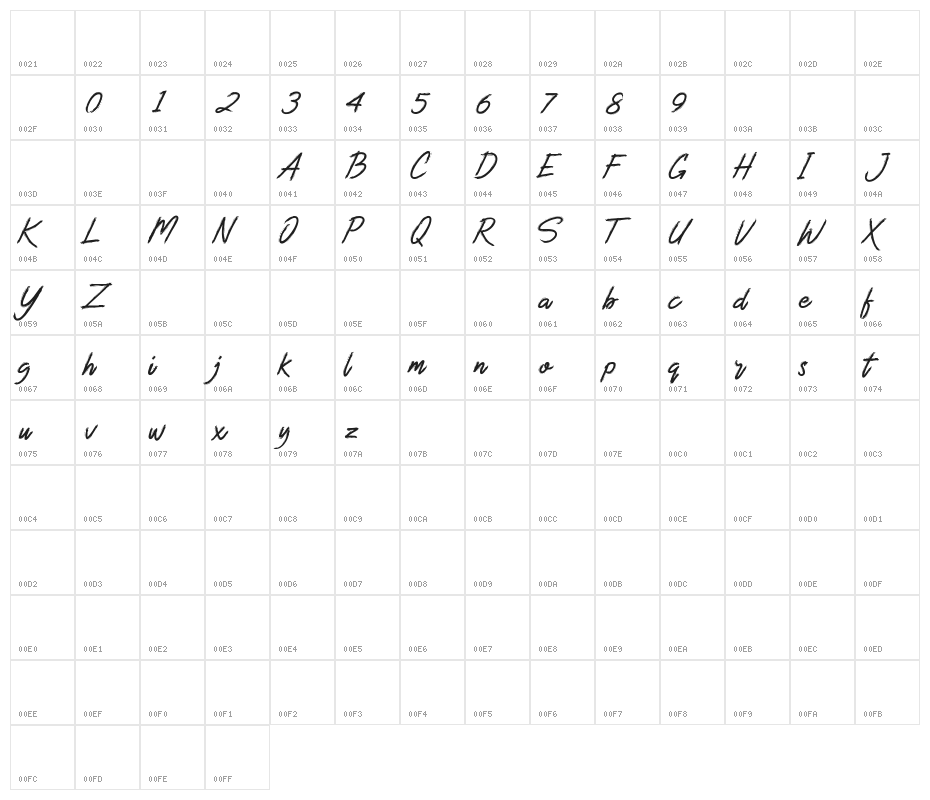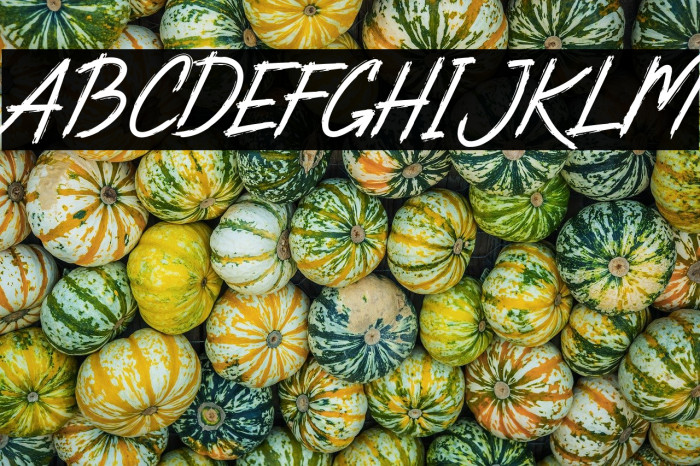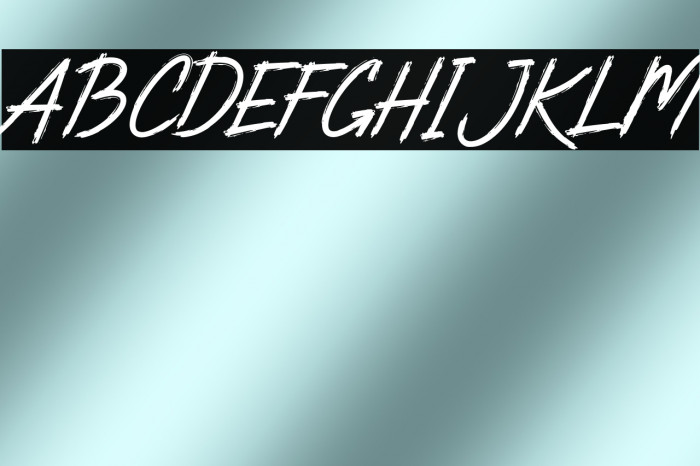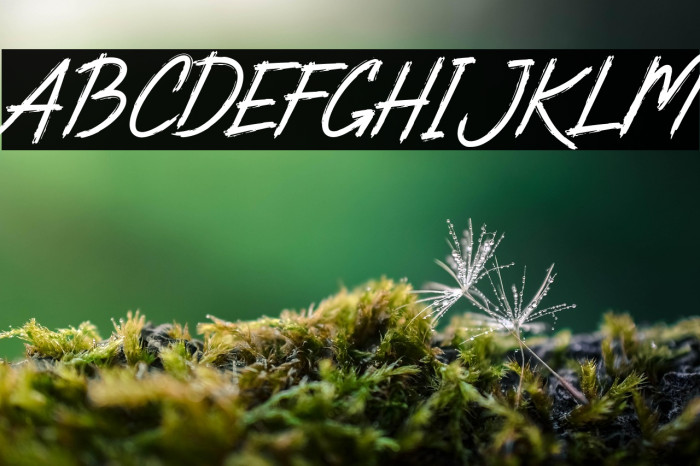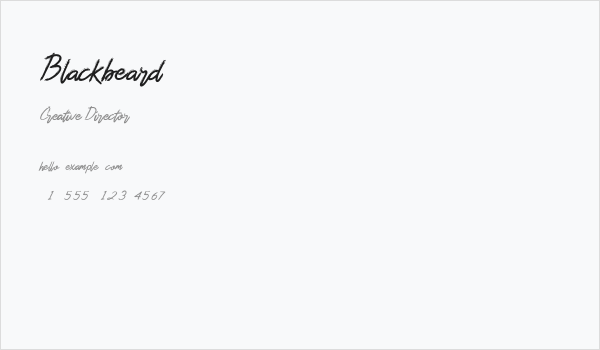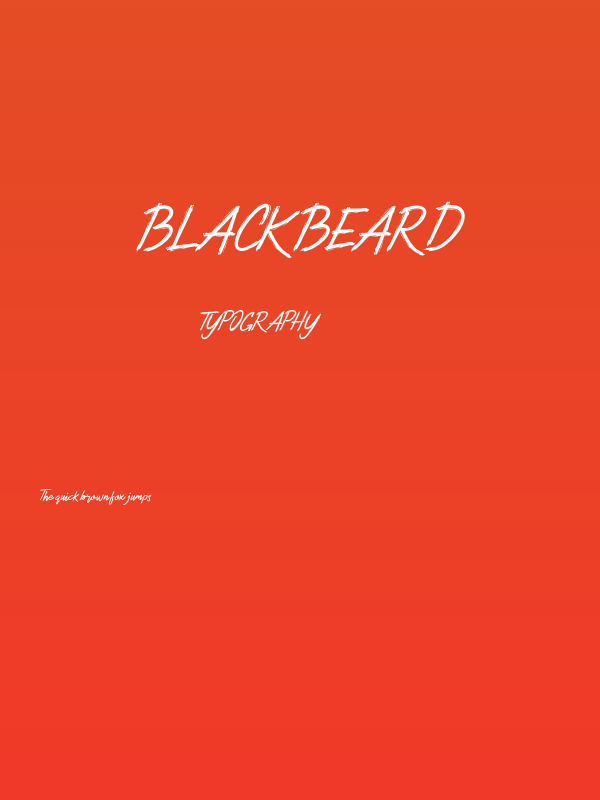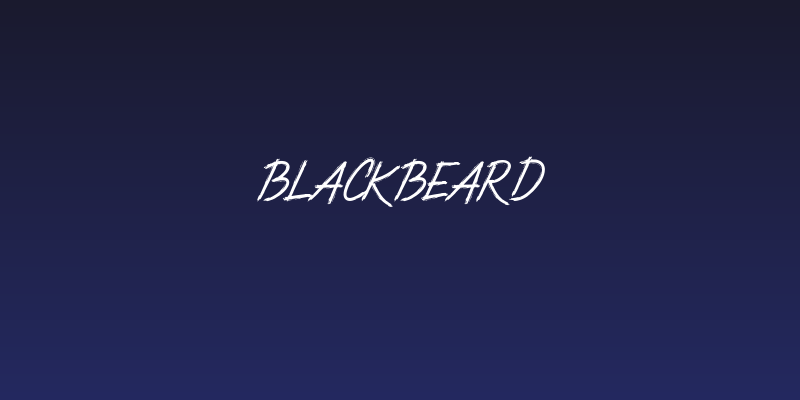
Blackbeard Font
Blackbeard Description
This font exhibits a bold, expressive style with a handwritten appearance. The strokes are dynamic and fluid, giving each character a sense of motion and energy. The uppercase letters are tall and slightly slanted, while the lowercase letters maintain a consistent flow, enhancing the script-like quality. The numbers are equally expressive, maintaining the same energetic style. The overall design is reminiscent of a brush script, with varying stroke widths that add depth and character. This font is ideal for projects that require a personal touch or a bold statement.
| Proposed Projects | Ideal for branding, logos, posters, and invitations where a personal, energetic touch is desired. |